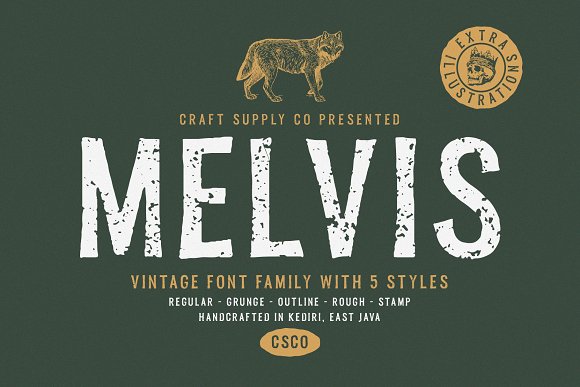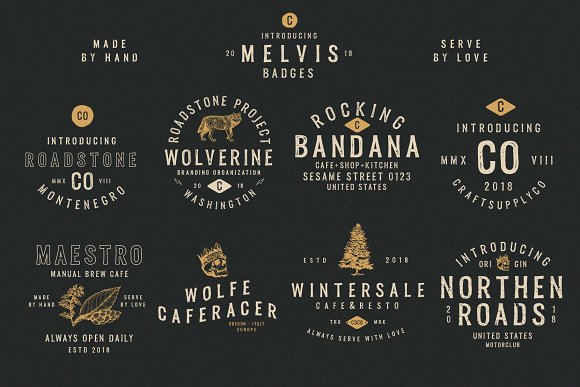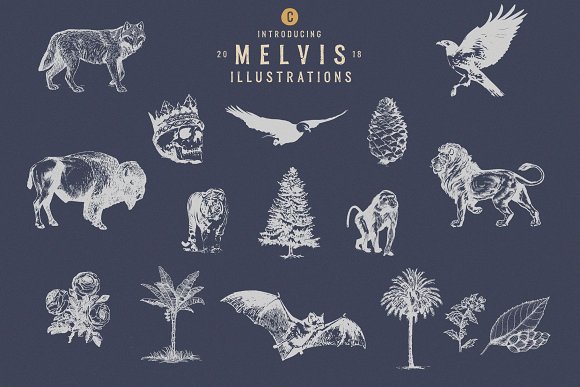
Melvis Vintage Font
Melvis – Vintage Font Family + Extras includes 5 Style Fonts. It can be used to create almost all types of design projects like print materials. Just use your imagination and some graphic design set in Extras, your project will become more alive and look great than ever with one of the Melvis Font.
You want to make a greeting card or a package design, or even a brand identity, craft design, any DIY project, book title, wedding font, pop vintage design, retro design or any purpose to make your art / design project look pretty and trendy? Feel free to play with all the patterns and shape!